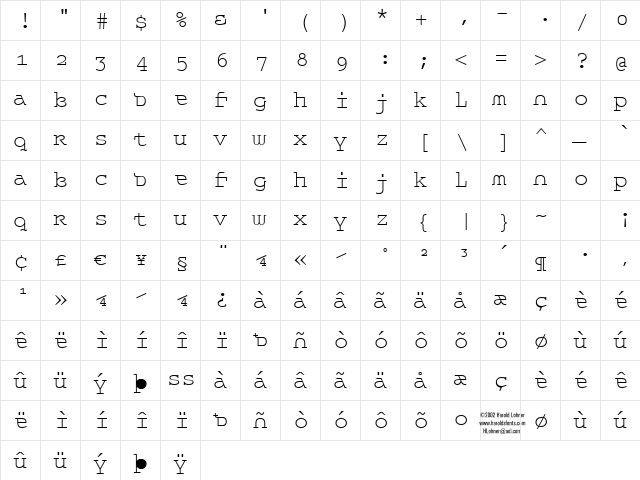
Queer TheoryLight Regular
Design Context for Queer TheoryLight Typeface
Queer TheoryLight offers clean, dependable letterforms without strong stylistic allegiance, making it a practical choice for designers who need flexibility. The delicate stroke weight brings airiness and refinement to layouts.